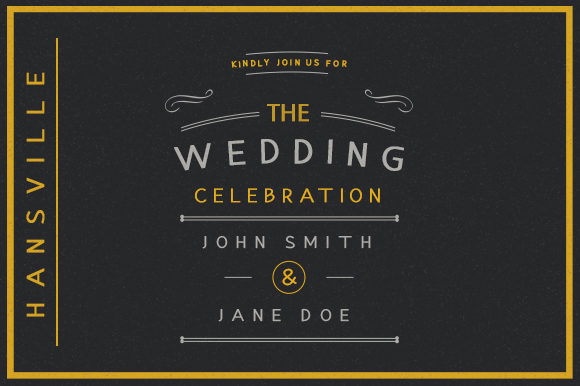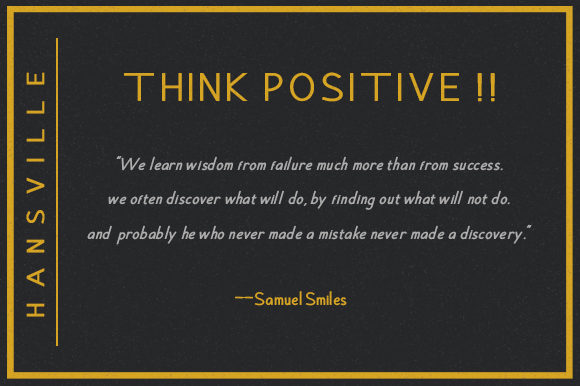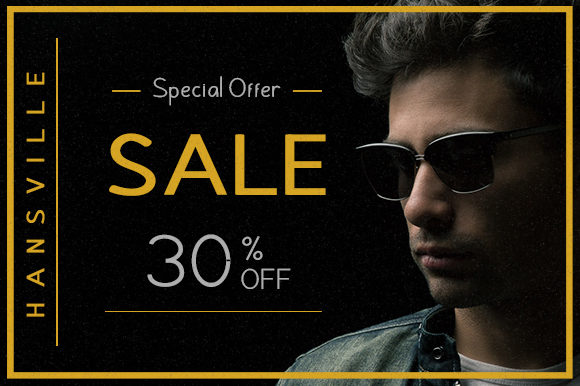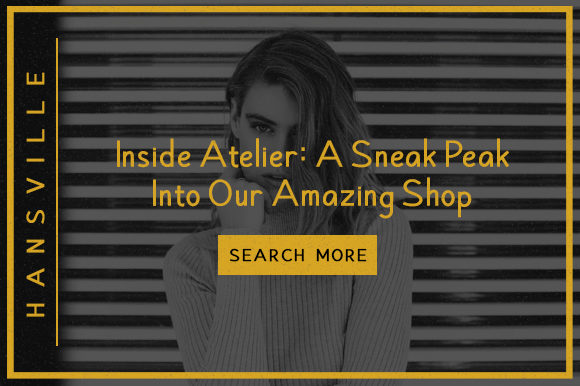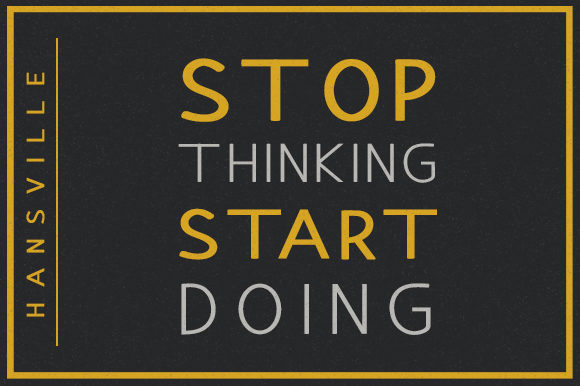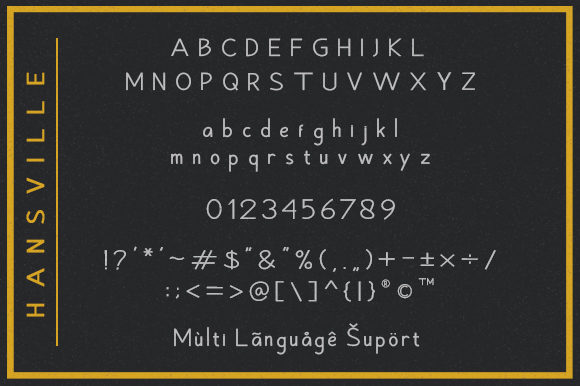
Hansville Family Font: Elevate Your Design with a Strong Sans Serif
In the world of typography, a font can make or break a design. For designers and crafters, finding the perfect typeface that embodies the essence of a project is crucial. This is where the Hansville Family Font comes in – a robust sans serif family that offers a wide range of possibilities for creative expression. In this article, we’ll dive into the features and benefits of the Hansville Family Font, and explore how it can elevate your designs.
A Strong and Versatile Typeface
The Hansville Family Font is a strong sans serif font that boasts striking capitals and smooth lowercases. Its clean lines and geometric shapes make it an excellent choice for a variety of applications, from branding and logos to headlines and web designs. The font’s versatility is further enhanced by its range of weights, allowing designers to experiment with different styles and tones.
Perfect for Branding and Logos
When it comes to branding and logos, a font needs to be memorable, legible, and scalable. The Hansville Family Font ticks all these boxes, making it an ideal choice for businesses and organizations looking to create a strong visual identity. Its bold and confident appearance ensures that your brand stands out, while its smooth lines and curves add a touch of sophistication.
Elevate Your Headlines and Web Designs
The Hansville Family Font is also perfect for headlines and web designs. Its strong sans serif style makes it easy to read, even at small sizes, while its geometric shapes add a modern touch to any design. Whether you’re creating a website, social media graphics, or print materials, this font is sure to make a statement.
High Fashion and Beyond
The Hansville Family Font is not just limited to digital designs; it’s also perfect for high fashion and luxury brands. Its sleek and sophisticated appearance makes it an excellent choice for fashion magazines, runway shows, and high-end product designs. Additionally, its versatility means it can be used for a wide range of applications, from sports matches to local events.
Exploring the Different Weights
One of the key benefits of the Hansville Family Font is its range of weights. From light to bold, the font offers a full range of options, allowing designers to experiment with different styles and tones. This means that you can use the font for a variety of applications, from tech startups to local events, and still achieve a consistent look and feel.
Why Choose the Hansville Family Font?
So, why choose the Hansville Family Font over other typefaces? Here are just a few reasons:
- Versatility: The Hansville Family Font can be used for a wide range of applications, from branding and logos to headlines and web designs.
- Legibility: The font’s clean lines and geometric shapes make it easy to read, even at small sizes.
- Scalability: The font is designed to be scalable, making it perfect for use on a variety of platforms, from business cards to billboards.
- Modern style: The Hansville Family Font has a modern, sleek appearance that is sure to make your designs stand out.
In conclusion, the Hansville Family Font is a powerful sans serif typeface that offers a wide range of possibilities for designers and crafters. Its versatility, legibility, and scalability make it an excellent choice for a variety of applications, from branding and logos to headlines and web designs. Whether you’re working on a tech startup, local event, or high-end fashion brand, this font is sure to elevate your designs and help you achieve your creative goals.